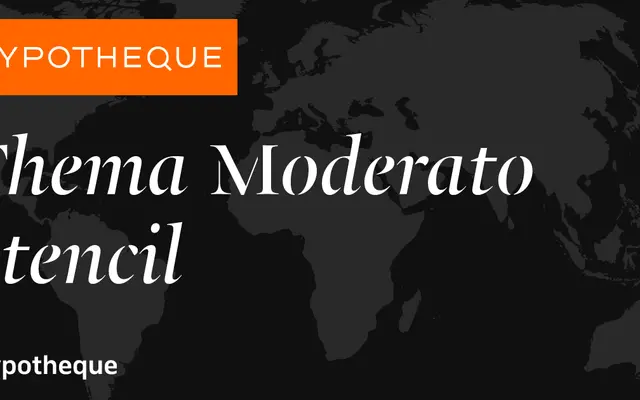
Thema Moderato Stencil
A stencil variant of the Thema Moderato family, available in two alternating glyph sets and four weights from Light to Bold.
Part of Typotheque's broader Thema system, this stencil cut offers two parallel glyph variants — A and B — across four weights, allowing typographers to mix interrupted and bridged letterforms for varied optical texture. The family connects to the wider Thema ecosystem, which includes Thema, Thema Moderato and the related Typonine Stencil with condensed options. Its modular structure suits editorial, wayfinding and print applications where stencil aesthetics are called for.
A stencil variant of the Thema Moderato family, with interrupted strokes and bridged counters characteristic of stencil typefaces; categorised as display due to its specialised decorative and structural stencil construction.